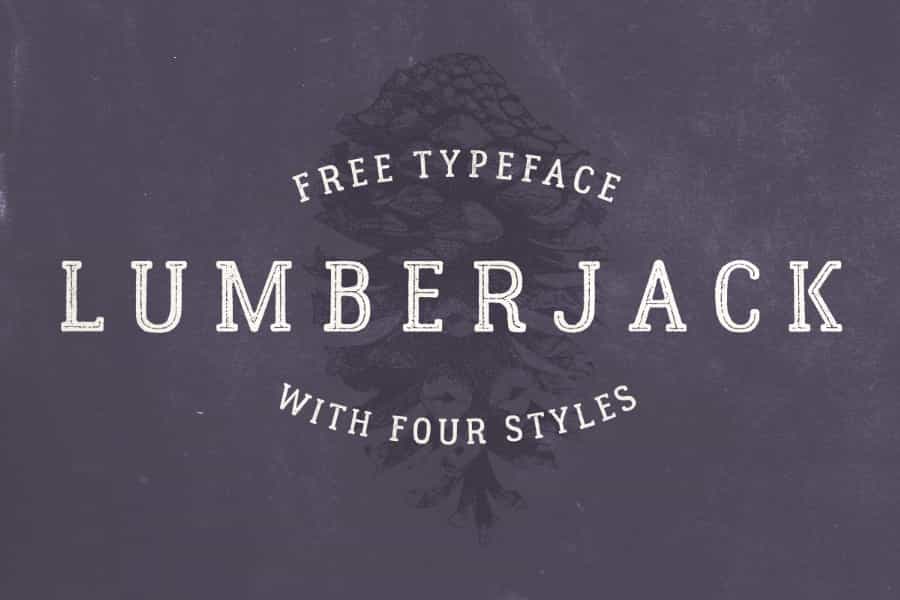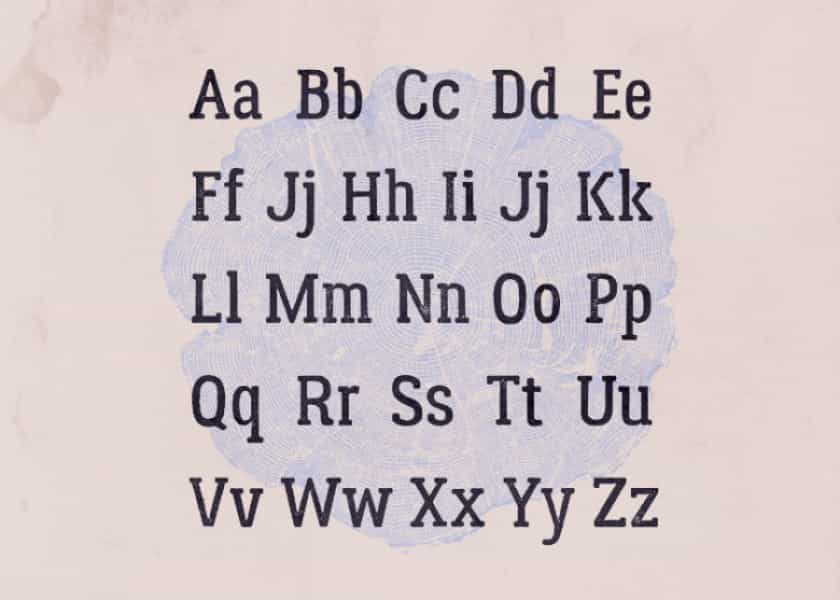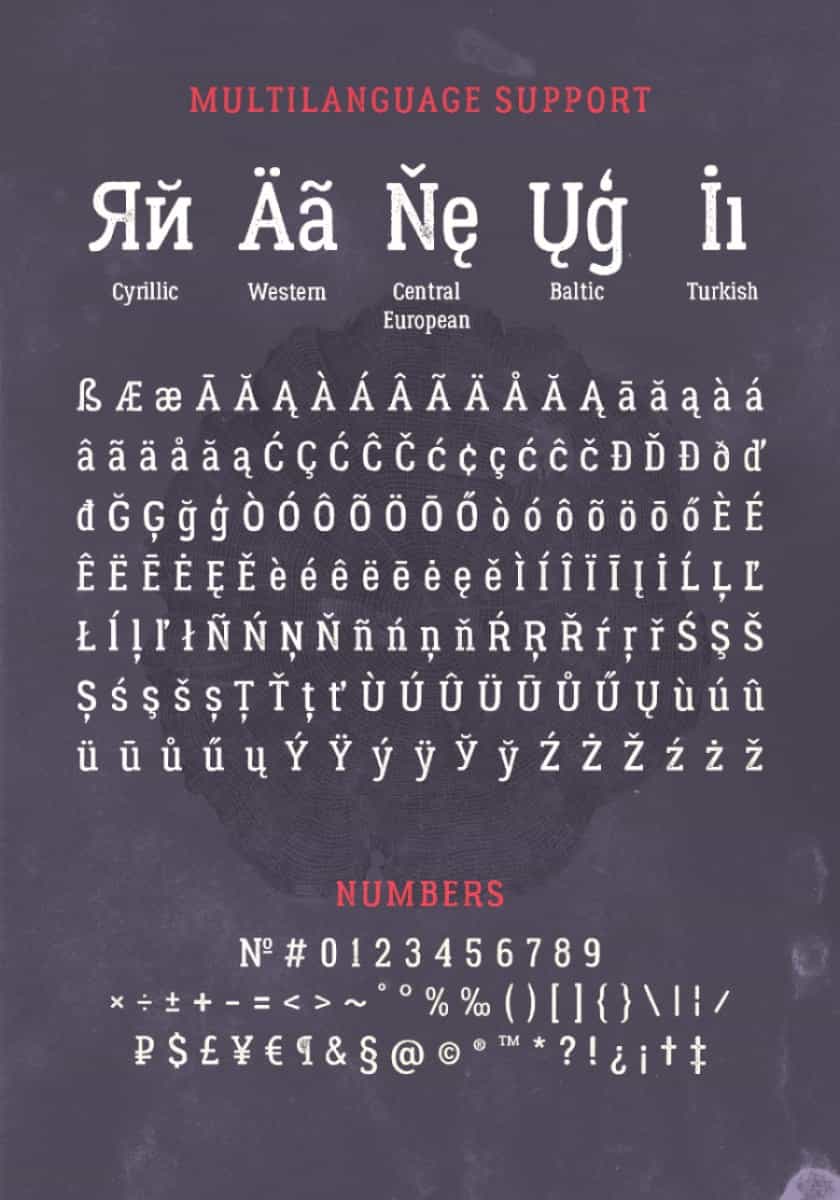
Lumberjack font offers four styles – regular style, rough style, inline and shadow – which support multilingual applications and projects, such as posters, badges and clothing designs. Lumberjack can also be used for many other applications including signage systems.